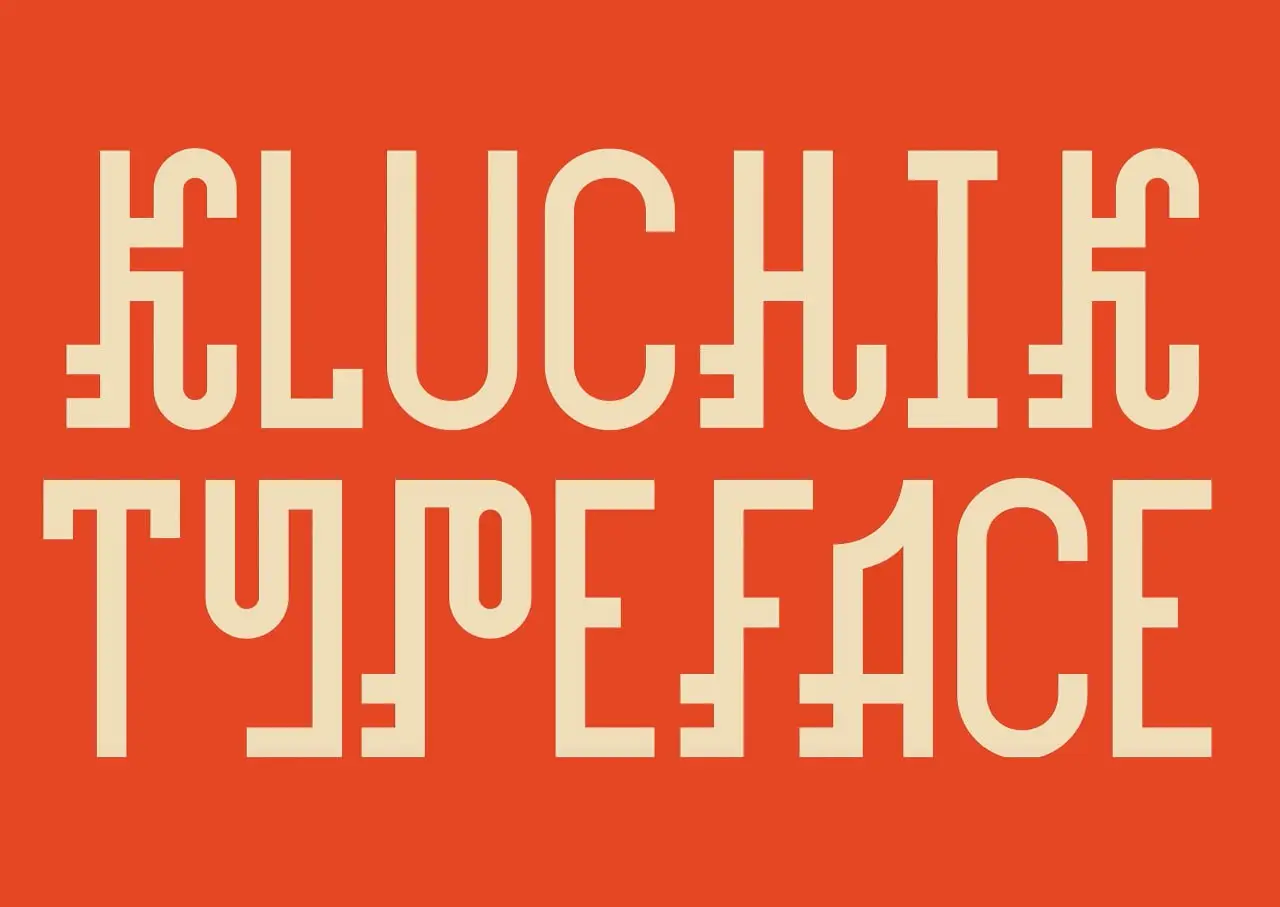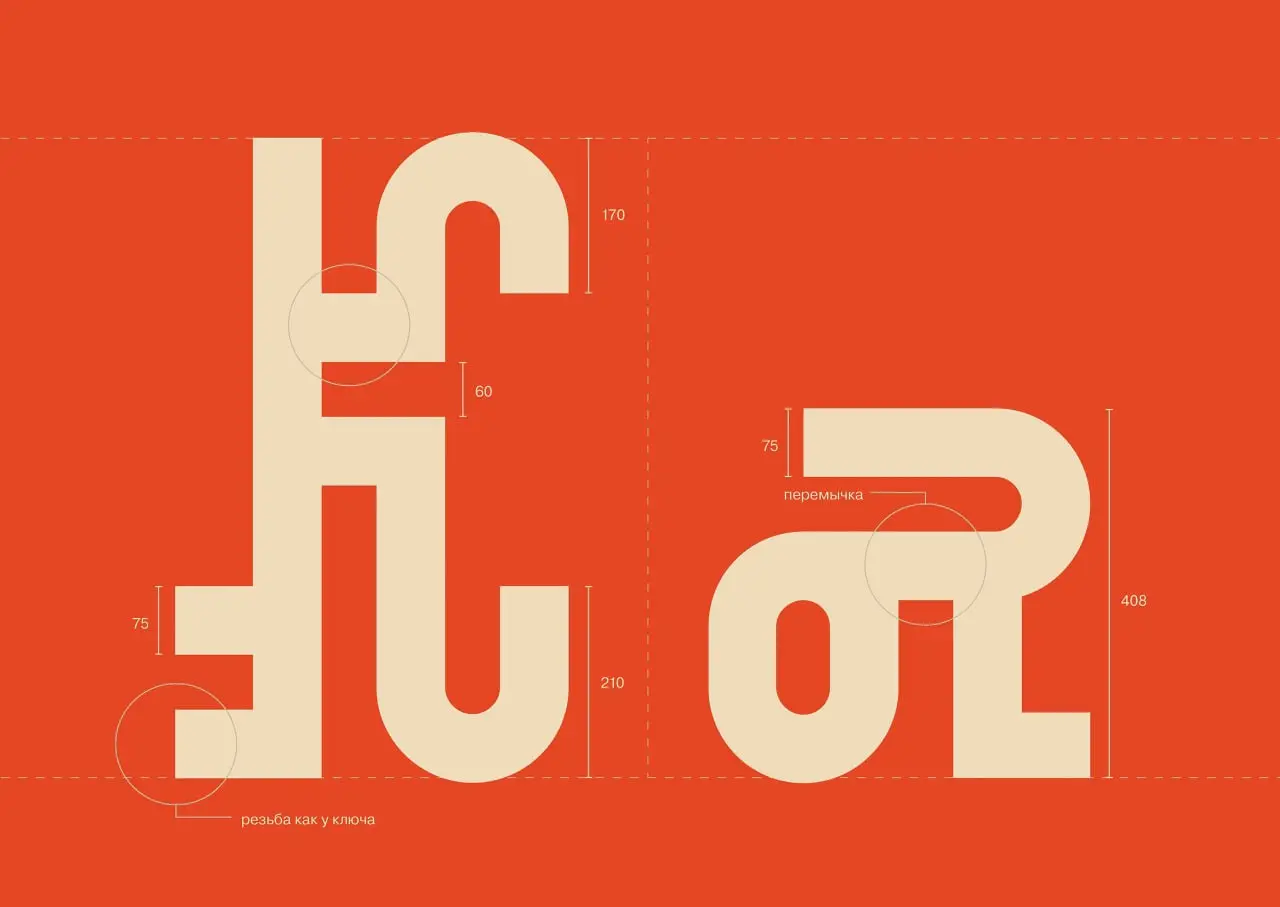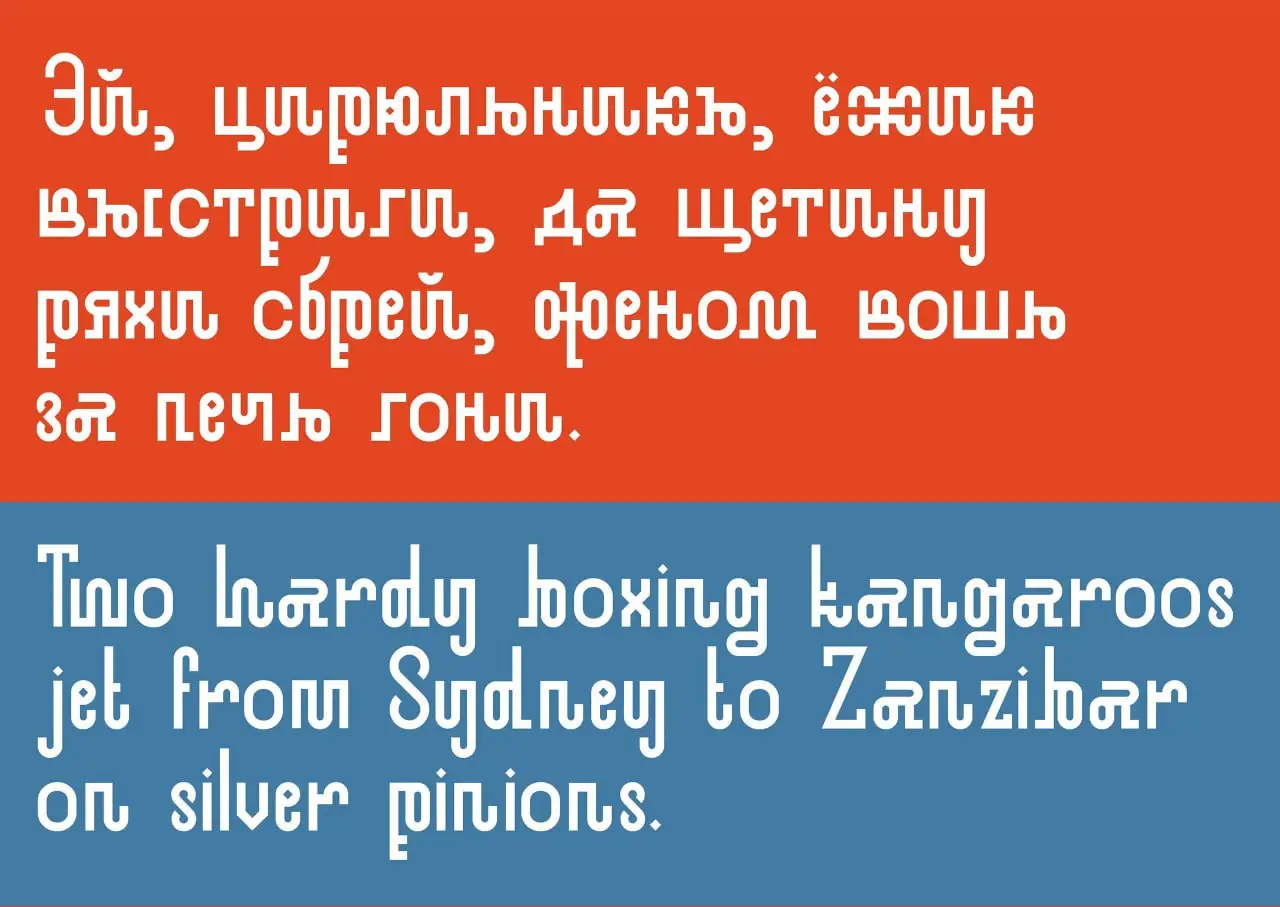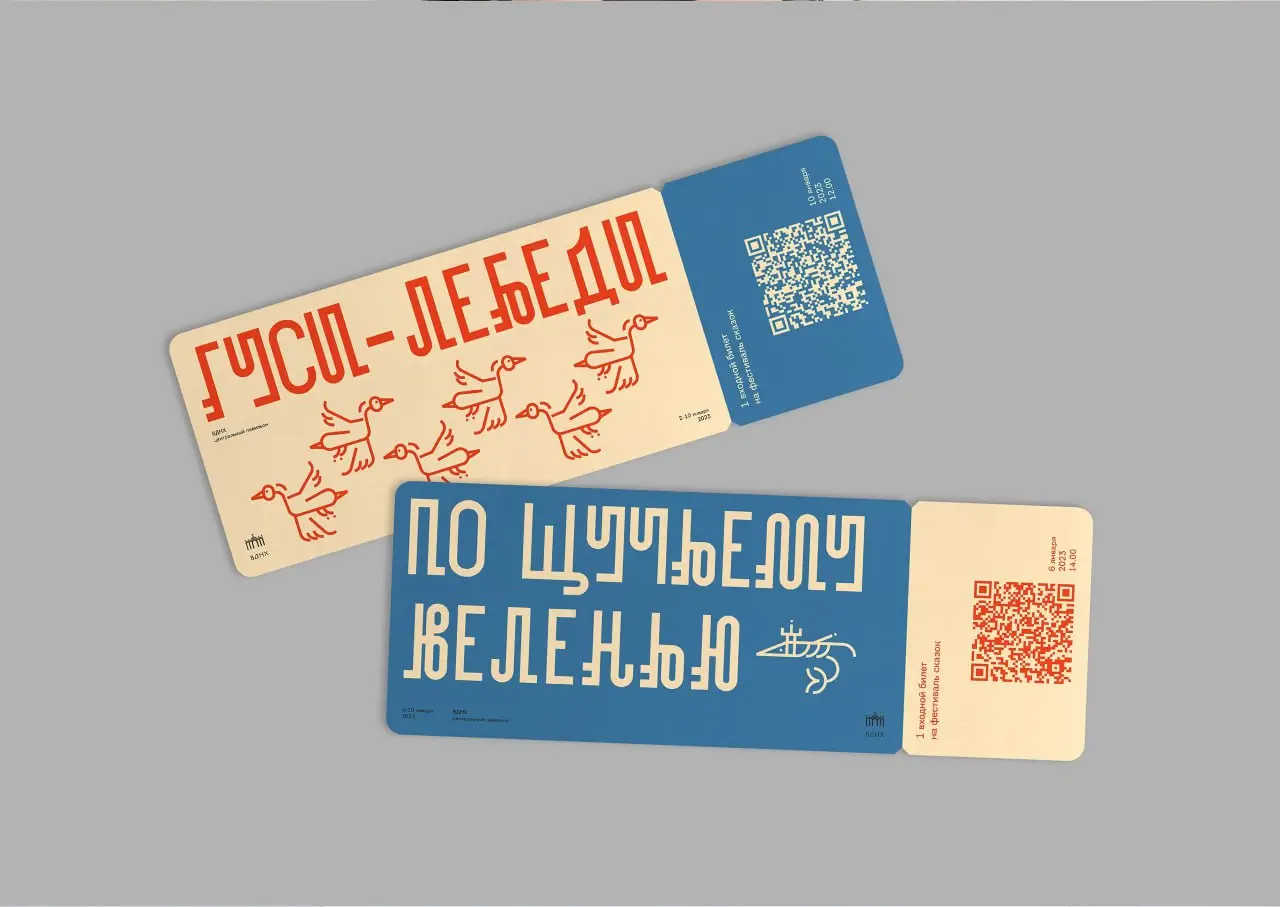
Kluchik Font By Ekaterina Kotracheva
Introducing the Kluchik Font by Ekaterina Kotracheva, a versatile typeface designed to bring a unique touch to your projects. This font features a blend of modern and classic styles, making it perfect for a variety of applications.
• Weights: Light, Regular, Bold
• Ideal for branding and logo design
• Great for web and print applications
• Perfect for UI elements and digital media